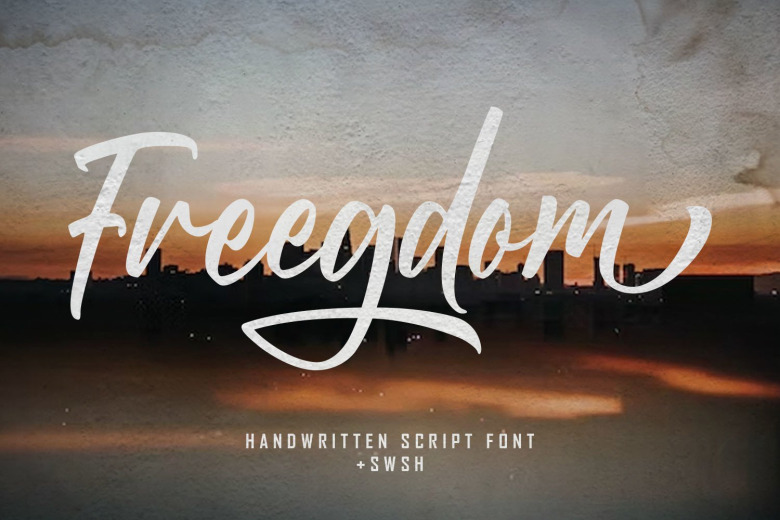
Freegdom Font
Freegdom is a thin handwritten script font, made in a modernist style and also a trending type of font among designers today, with a luxurious appearance that will make your designs attractive and will look very suitable.
This Freegdom font really should be in ad text, book titles, logos, mock ups, watermax, magazines, food designs, products, headers, coffee logos, brands, films, columns, videos, and imagination.
Freegdom Handwritten Script Font